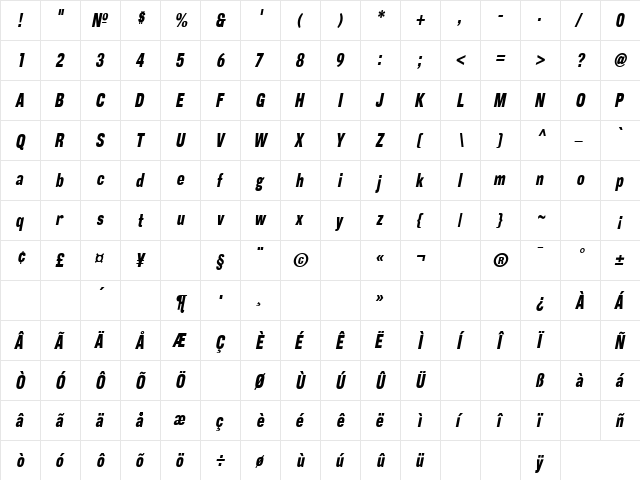
CorpusGothic CondensedOblique
Design Context for CorpusGothic Typeface
CorpusGothic has the quiet confidence of well-executed sans-serif typography: versatile, unobtrusive, and dependable at any size. Its italic angle brings a sense of urgency and motion to the letterforms. Its narrow stance lets it pack a punch even in space-constrained designs.
Font Pairing: Works well alongside a characterful serif or display font that can carry the expressive load while CorpusGothic handles the functional copy.
Pro Tip: Try CorpusGothic in all-caps with moderate tracking for navigation and label copy — it performs well in systematic UI contexts.